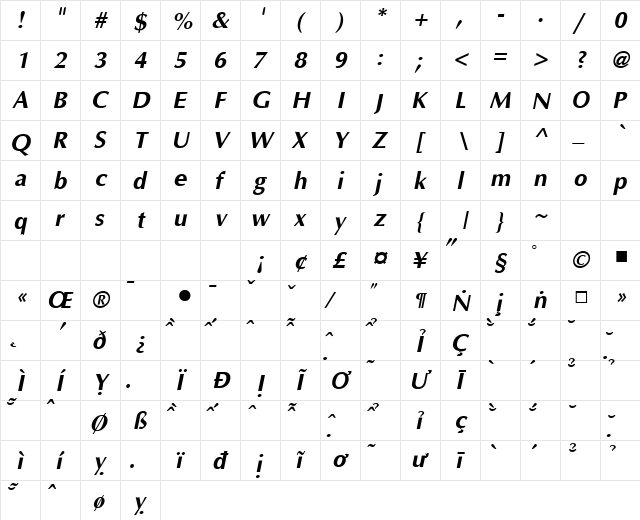
VNI Aptima BoldItalic Font Preview
Design Context for VNI Aptima Typeface
VNI Aptima takes a measured approach to typography — its balanced proportions and neutral character make it a reliable workhorse for both digital and print work. The dynamic lean of this cut emphasises speed and emphasis in any layout. Its bold stroke weight gives it real presence on the page.
Pro Tip: Try VNI Aptima for annotation and caption copy alongside an upright companion — the contrast in angle creates a dynamic but ordered typographic system.